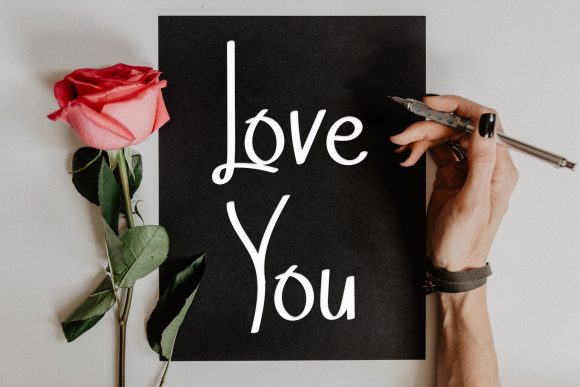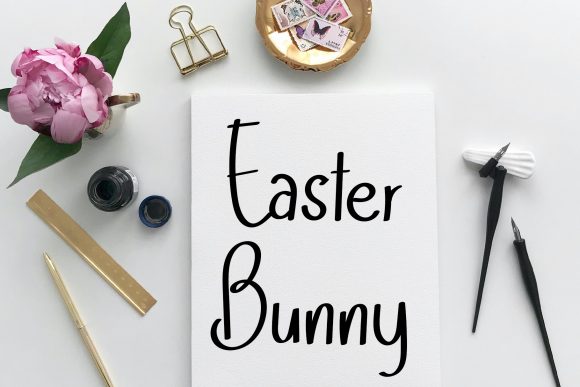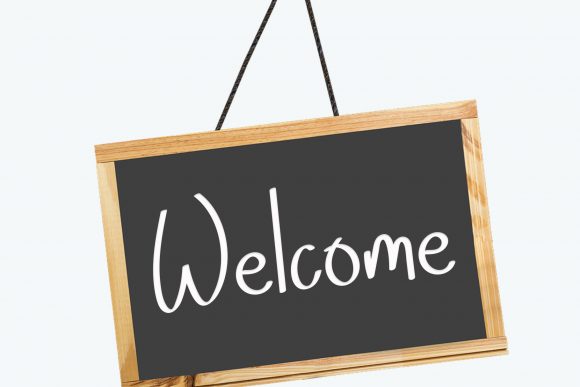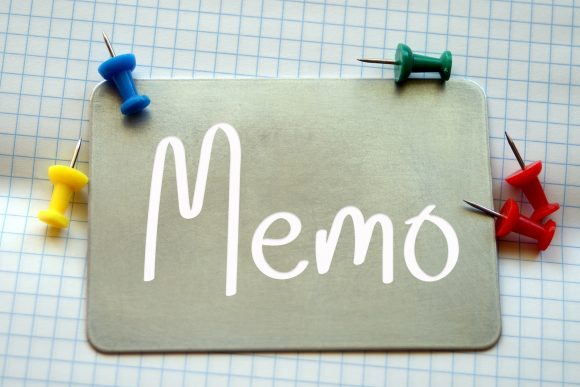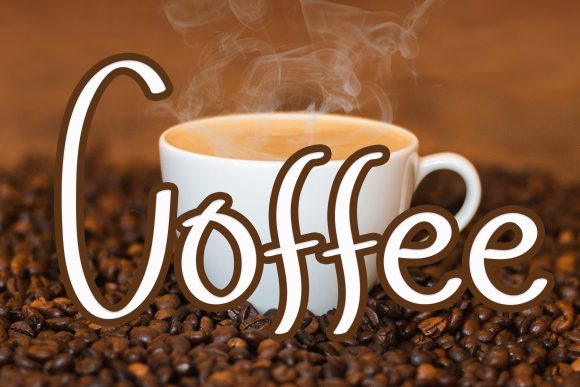
Lemonade Font
About Lemonade Font
Lemonade is a thin, simple and clean handwritten font. It can be used for various purposes such as logos, wedding invitations, headings, t-shirts, letterhead, signage, labels, news, posters, badges and so much more.